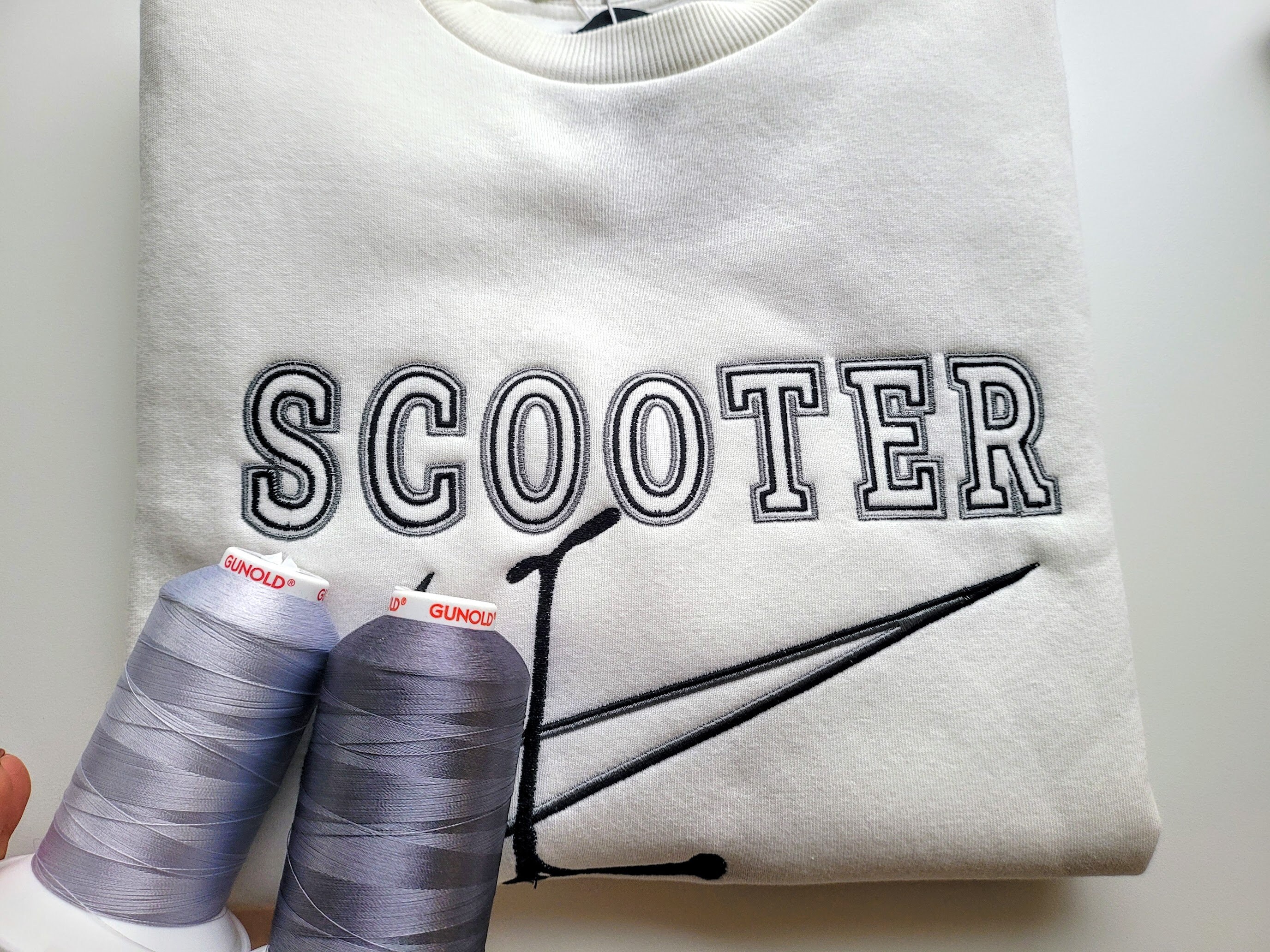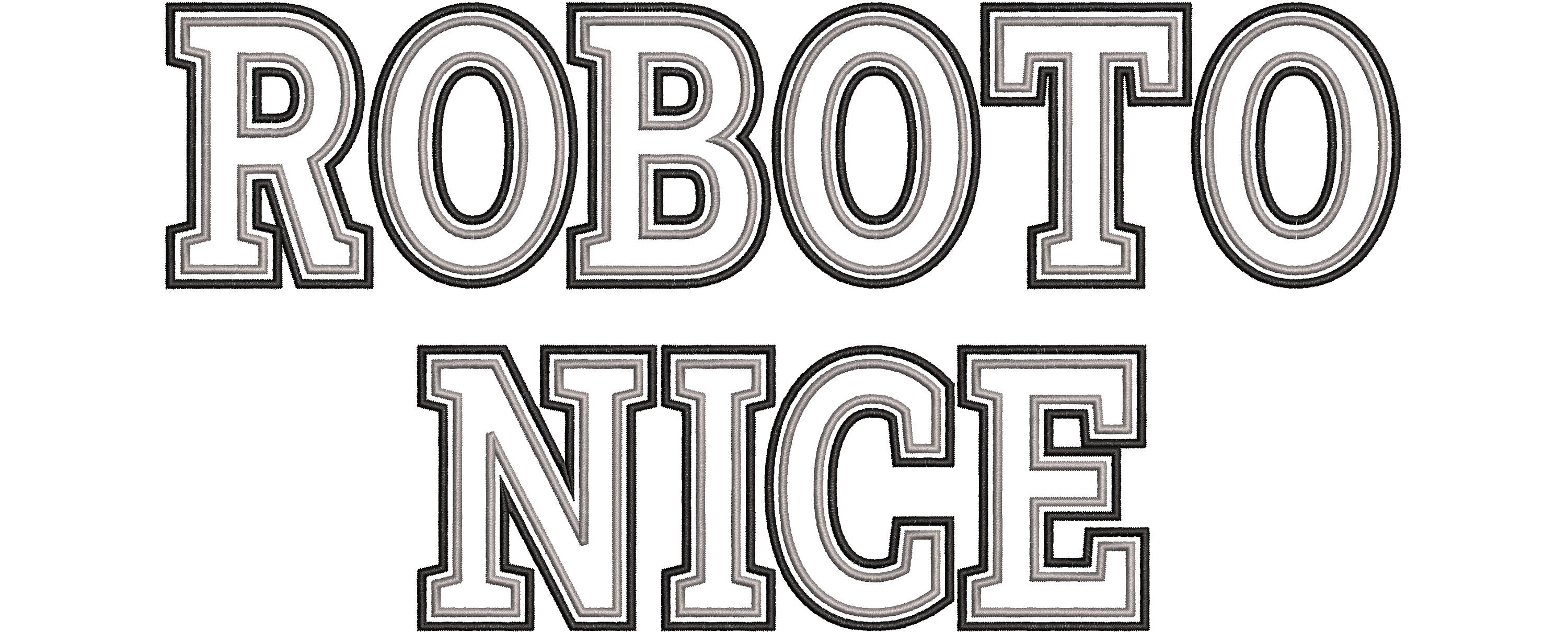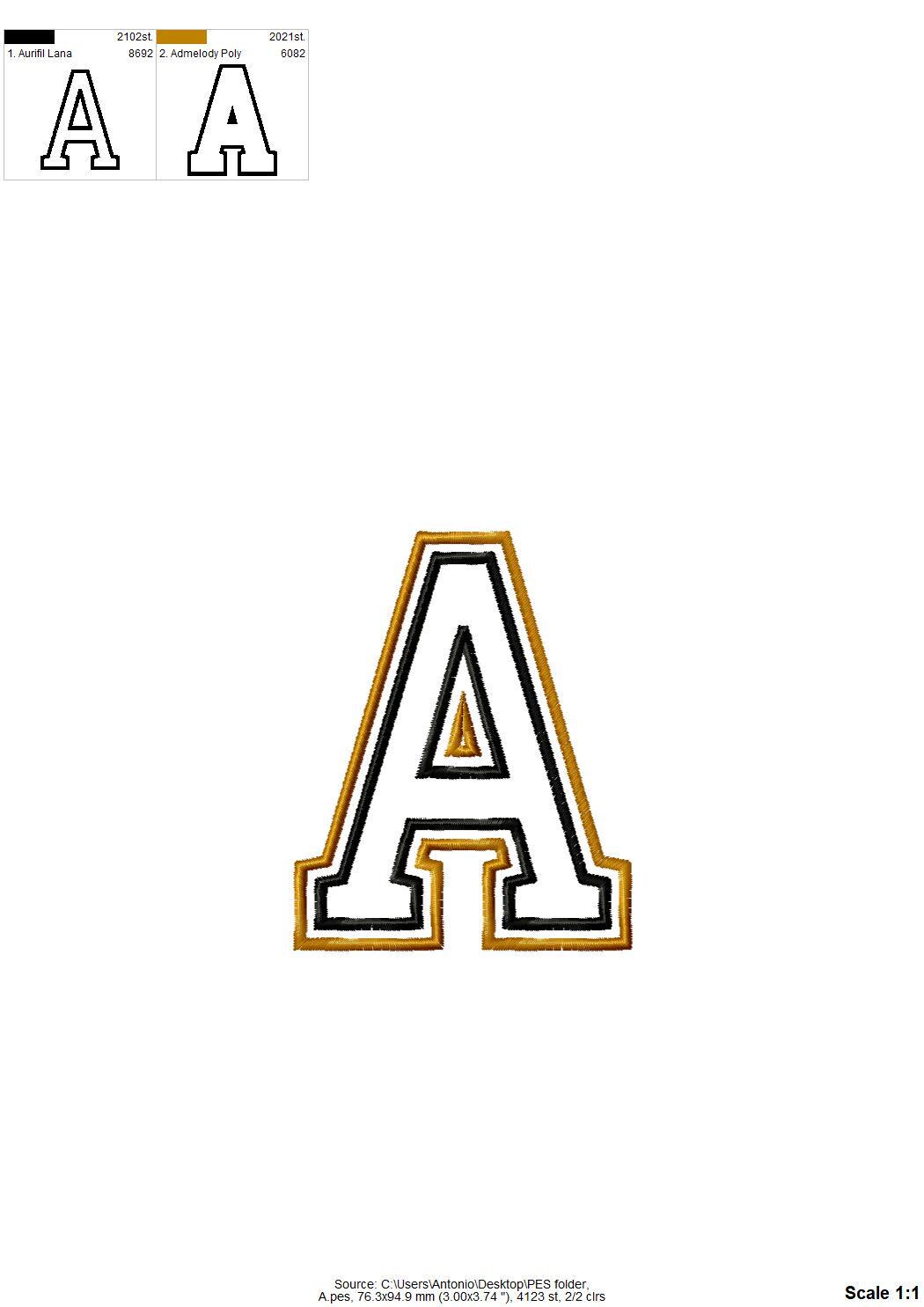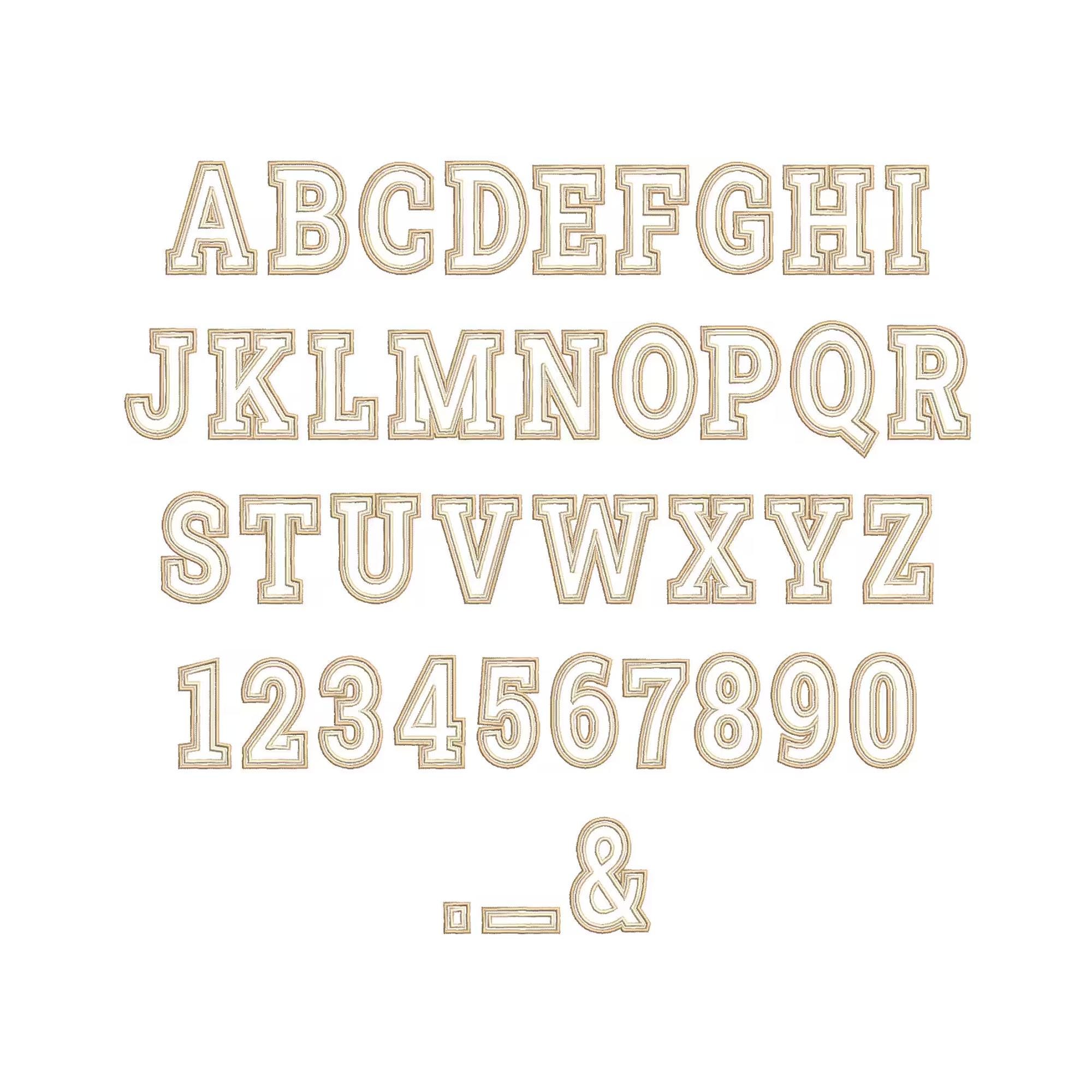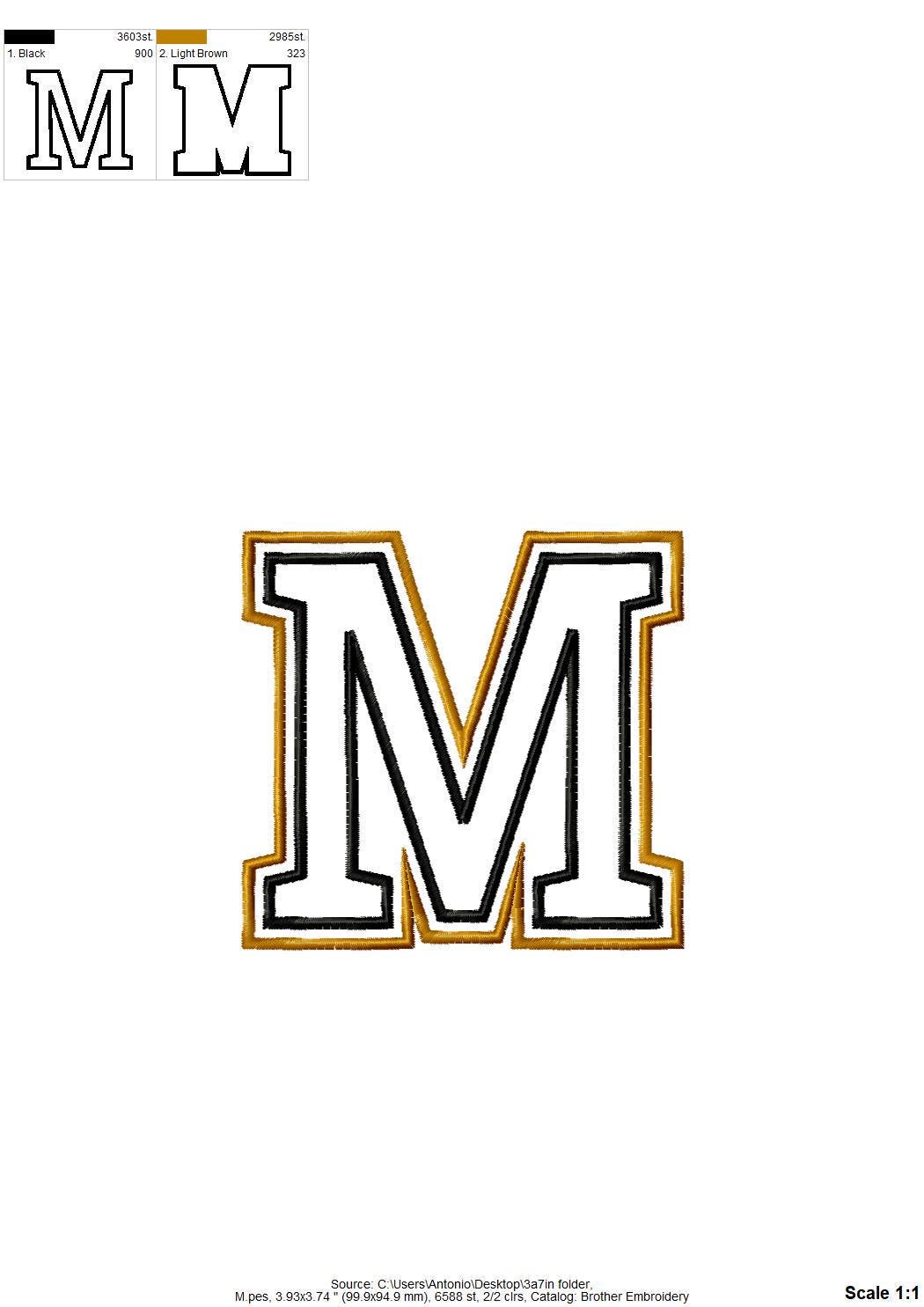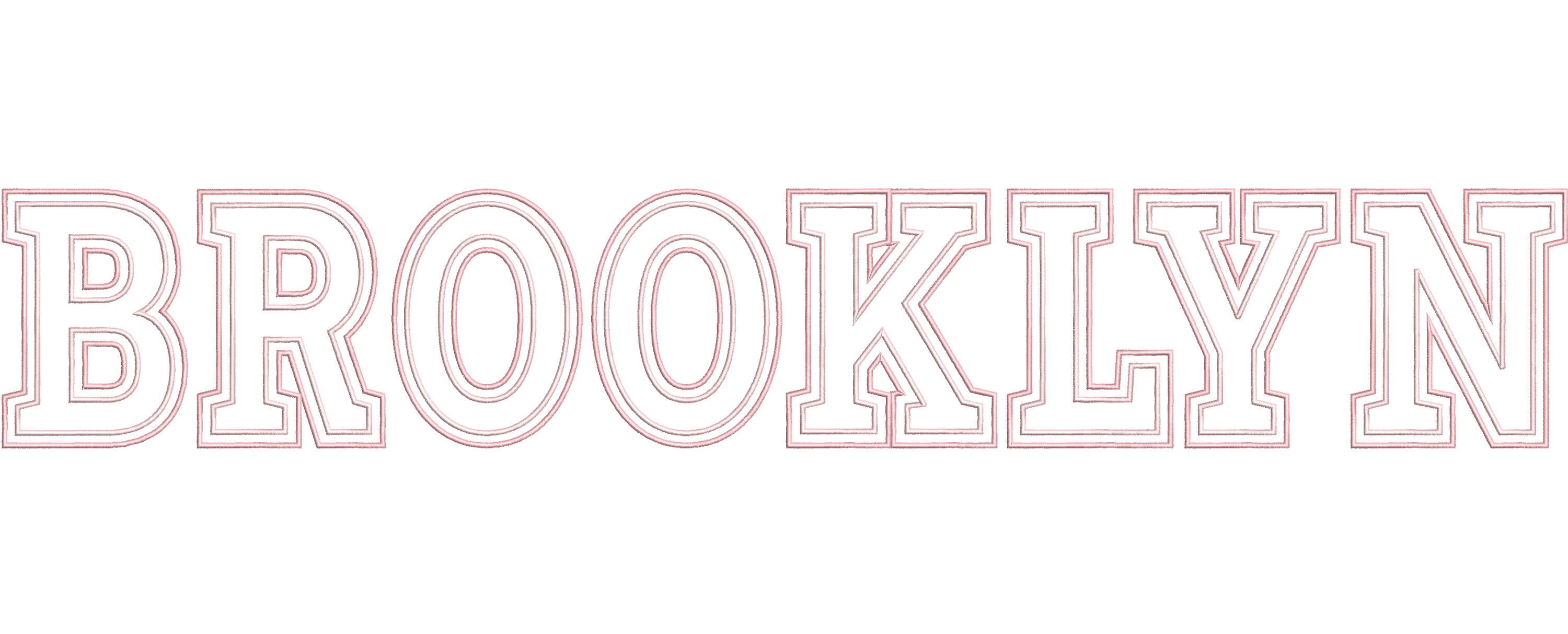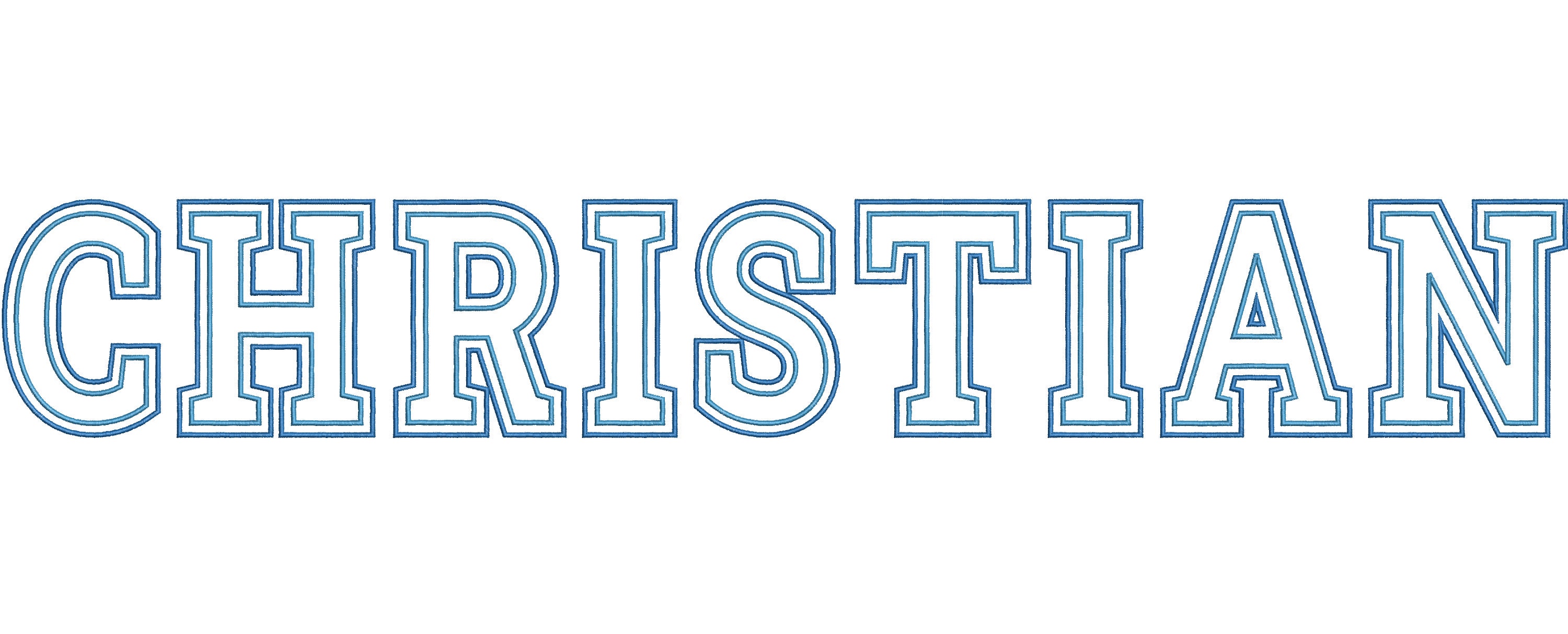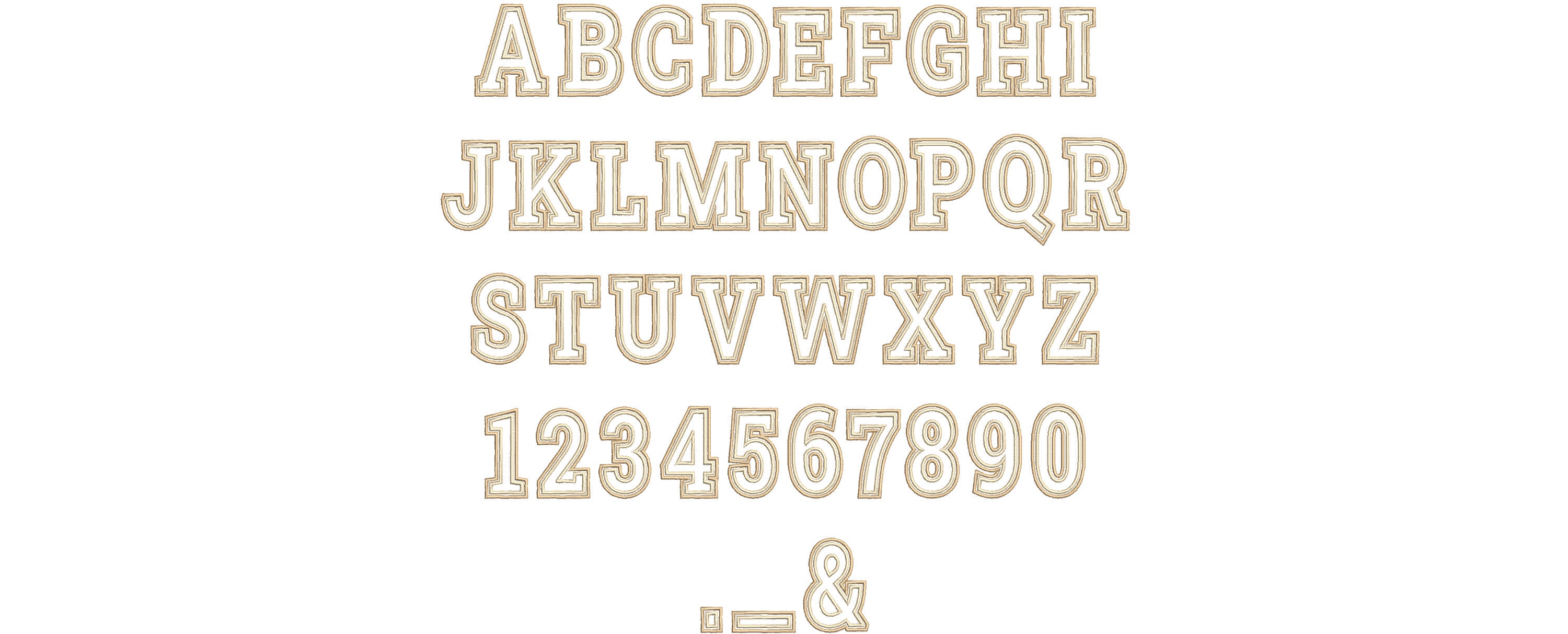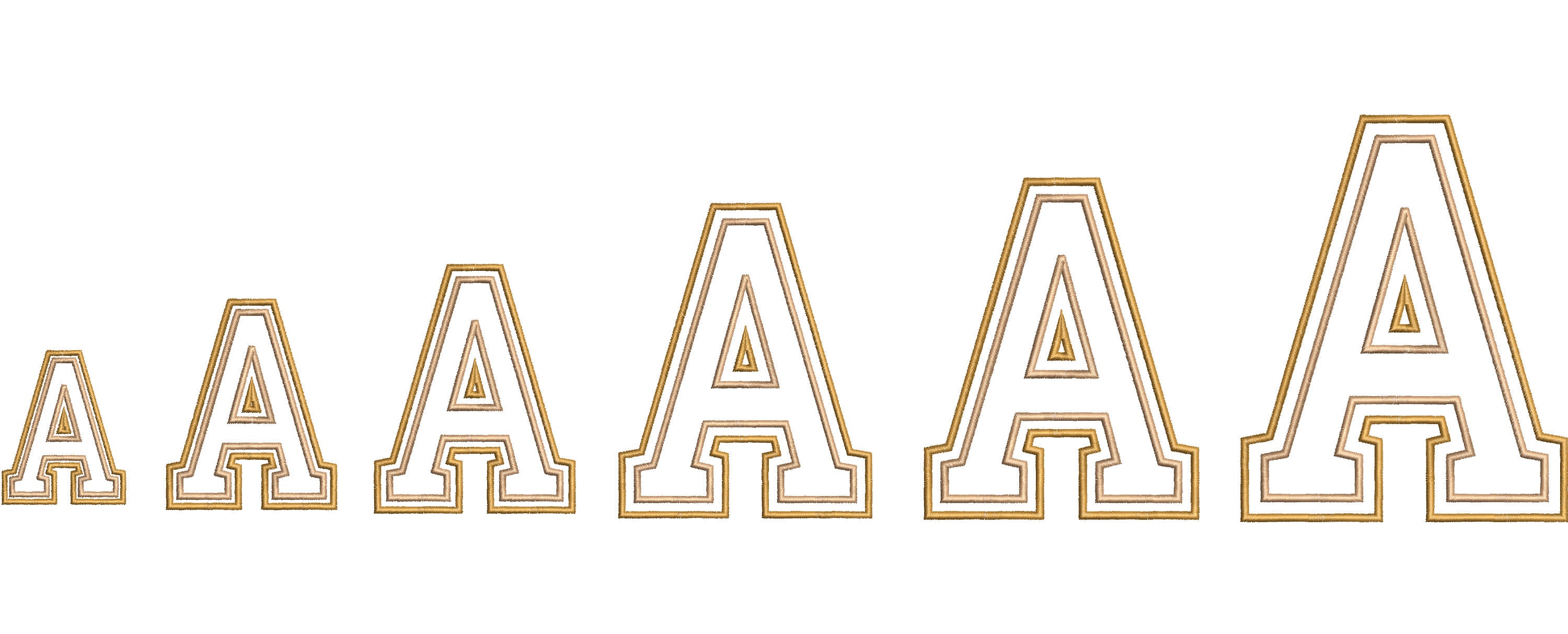
Nice Sport Font double two outlines alphabet sport block font machine embroidery designs satin stitch 2 lines Monogram sizes 2.3 thru 6 inch
This is a transparent font, with only two outlines to get quick results and a modern look.
Whole alphabet uppercase, numbers and punctuation.